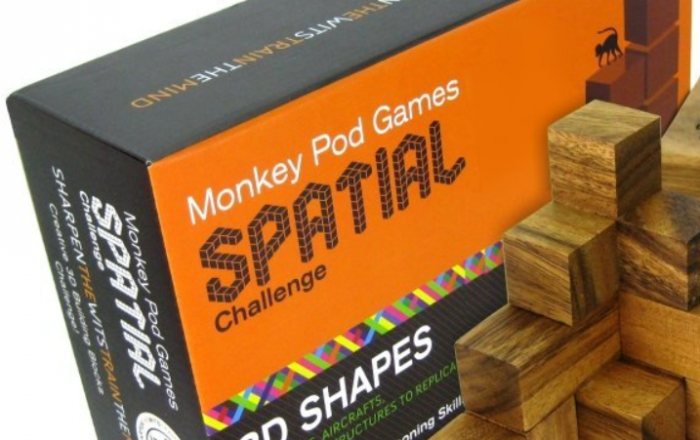
• well another escher inspired set. however with this one i was also influenced by the soma cube - which is very escheresk itself. actually i don't know if i'm more happy about this set which is much more simple and clean than my previous efforts or that i finally googled upon the soma cube which i had as a kid and wasted many hours playing with...much like now with fs :) thanks to frodo7 with Homage a Escher and shasta with Escheresk for providing great examples of clarity and inventiveness of design in this genre.
Very nice concept. Like it!
Yet another fine example that the idea is all around us. It looks beautiful. Flawless. Actually, I expected to see something like this from you after the release of tesselation and molecular complex series. One can not not see the third dimension in them. Now I've learned about the Soma cube (and its connection to lectures on quantum mechanics), this font looks even more attractive. I couldn't help, but took the mathematical description of soma pieces a bit further. We can describe your letters as polycubes of orders 8-27 (e.g. I = dodeca cube; J = duodeca cube; G = pentadeca cube; E = hexadeca cube, etc.). Add to that the description of left/right screw, branching, bending, chirality, and presto you defined your letters the way even a blind computer can visualize them.
You've outdone yourself, f.k. What I particularly like -- no shading! No that I'm agin it, far from it. But I love the way the dimensional effect is achieved just by messing with the conventions, and the fact the glyph shapes themselves are an extension of what you've been playing with for a long time now. Perfect.
Okay, I'm going to start calling you Funk King Midas because everything you touch turns to fonts! Really nice execution on this one. Greatness, cubed.
It's like a set of recomposed rubik cubes.
@frodo7 - whew man, that's some deep stuff there. you bring another um, dimension to commentary. you are a true renaissance man. sorry no color version.
@ oyrus - well i'm not certain, but i think soma was invented first. but of course rubik is what everyone knows. and when i was searching for the soma cube before i found it, i mainly got results showing rubik. but you're right :)
A wonderful synthesis of all the work you have put into the Molecular series.
The Puzzle style fonts seem to be ruling the roost at the moment. Well done.
Beautiful work, funk king. And, now I know what a soma cube is. :-)
Digging this FK. Like Oyrus, I'm loving the rubik's cube vibe.
Nice font tribute to the best "MC" of geometry....,)
Hey, just spotted Soma in the wild. It’s being used as the logotype for an Asian cinema review site’s masthead. Check it out at iSugoi. Sugoi desu yo ne! : )
I assume the 3D illusion was created with detailed 2D "bricks". I might be wrong. But it definently looks good.